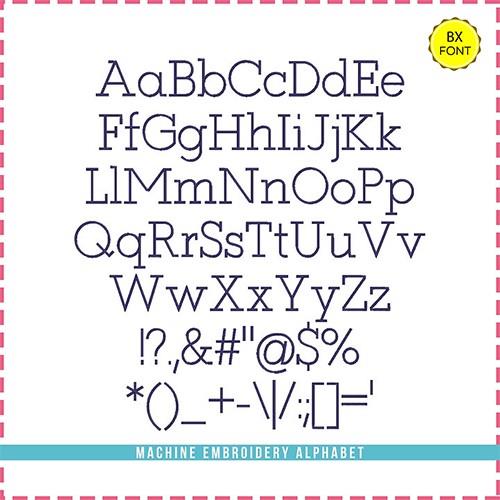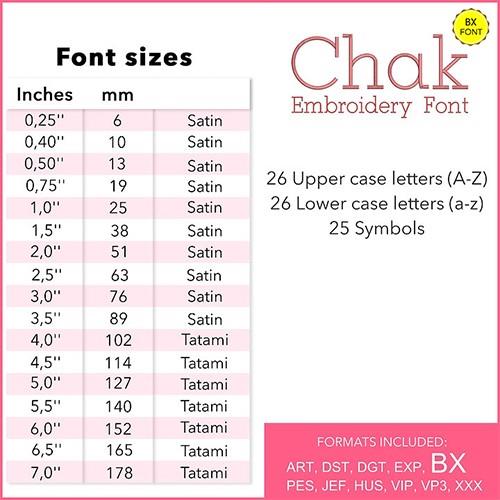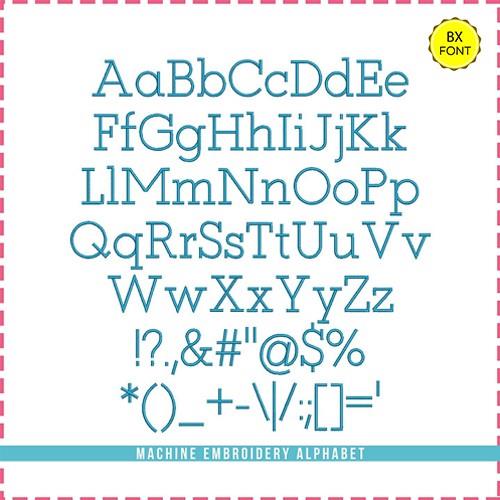
Maya Kreations is happy to present Chak Font Embrilliance machine embroidery font which has Classic block style machine embroidery font suitable for personalized items like tote bags or jackets. The sample text 'Chak' shows clean, structured designs. Available in BX font and Embrilliance. included. If you would like to view more embroidery fonts and alphabets please search our embroidery fonts page.